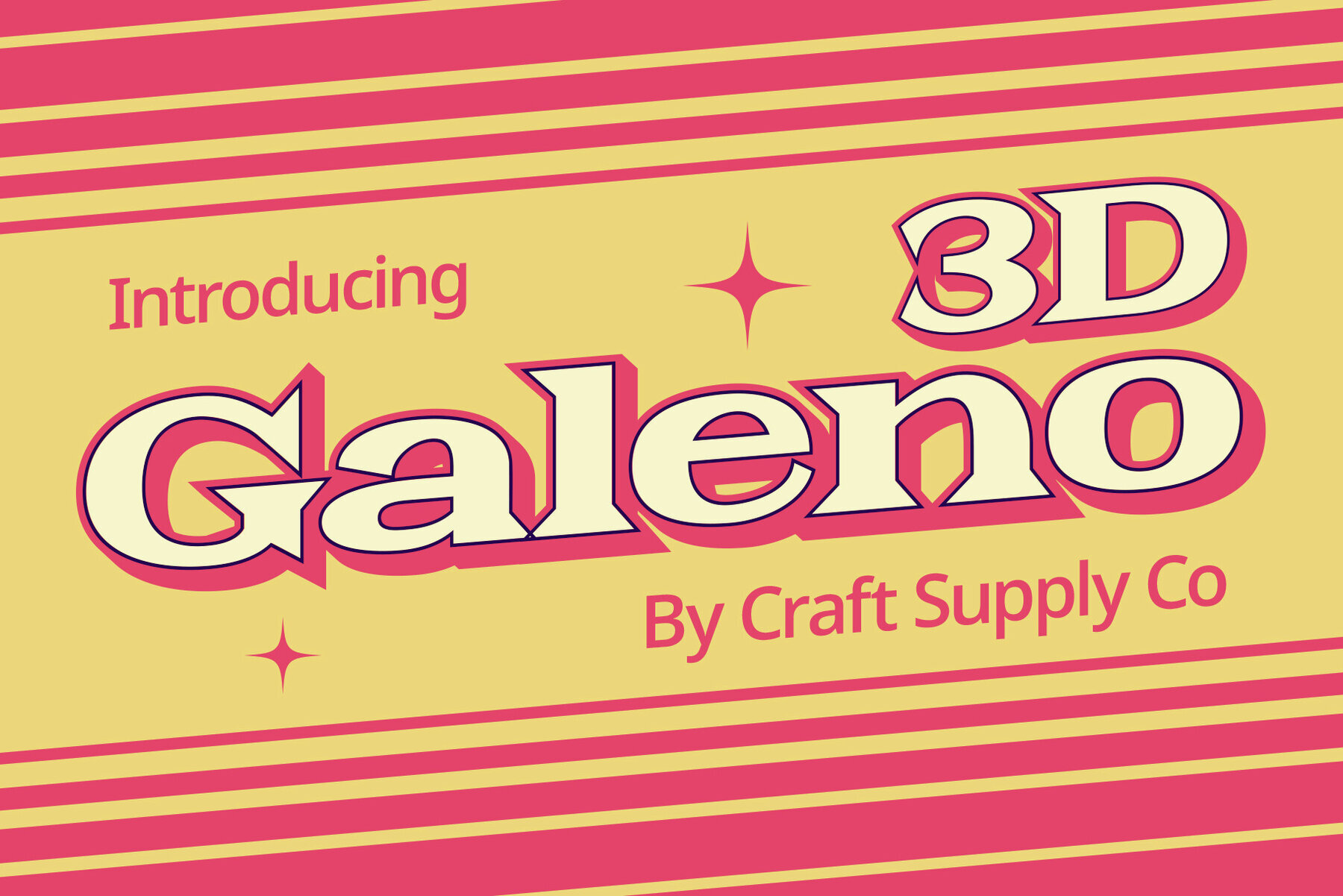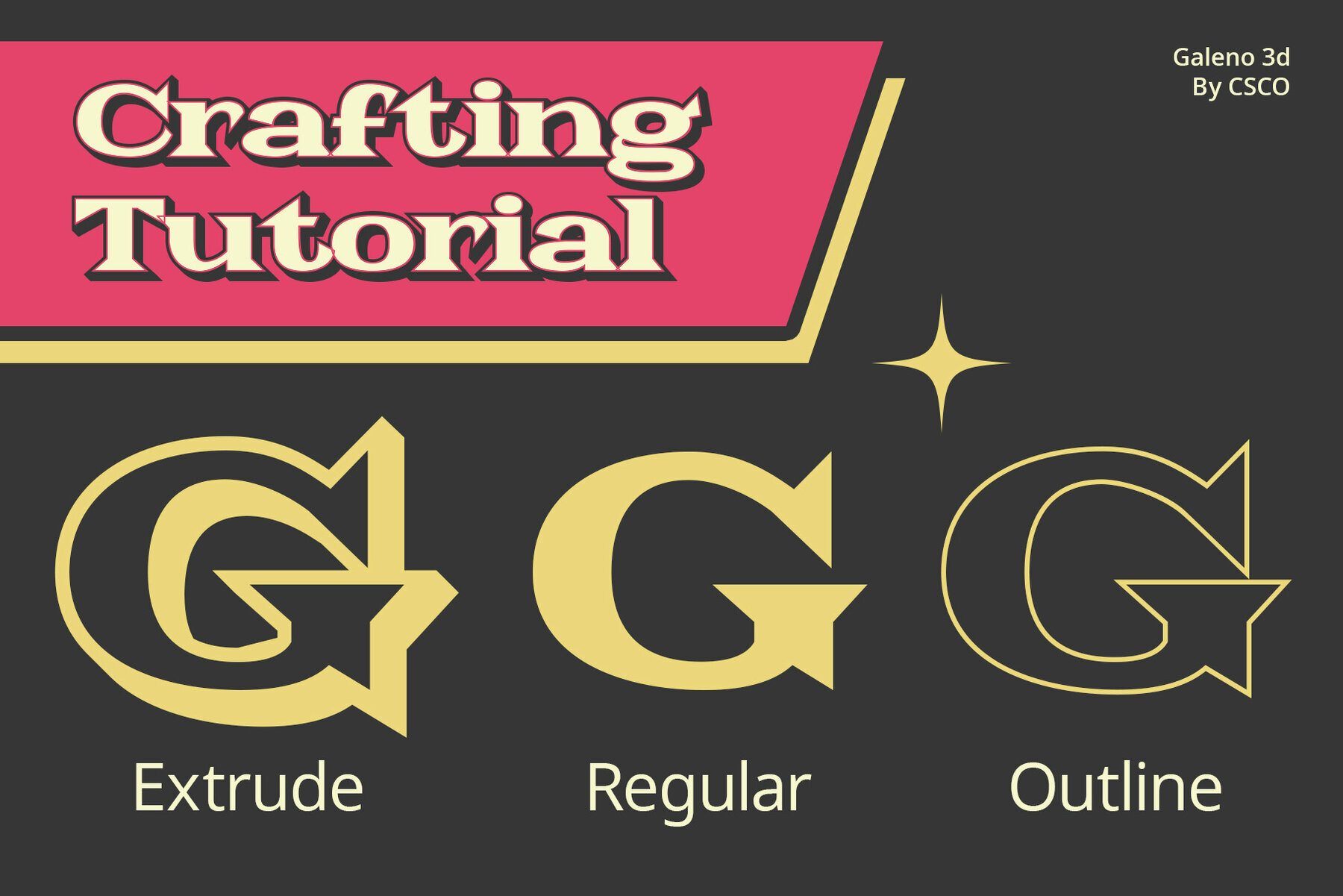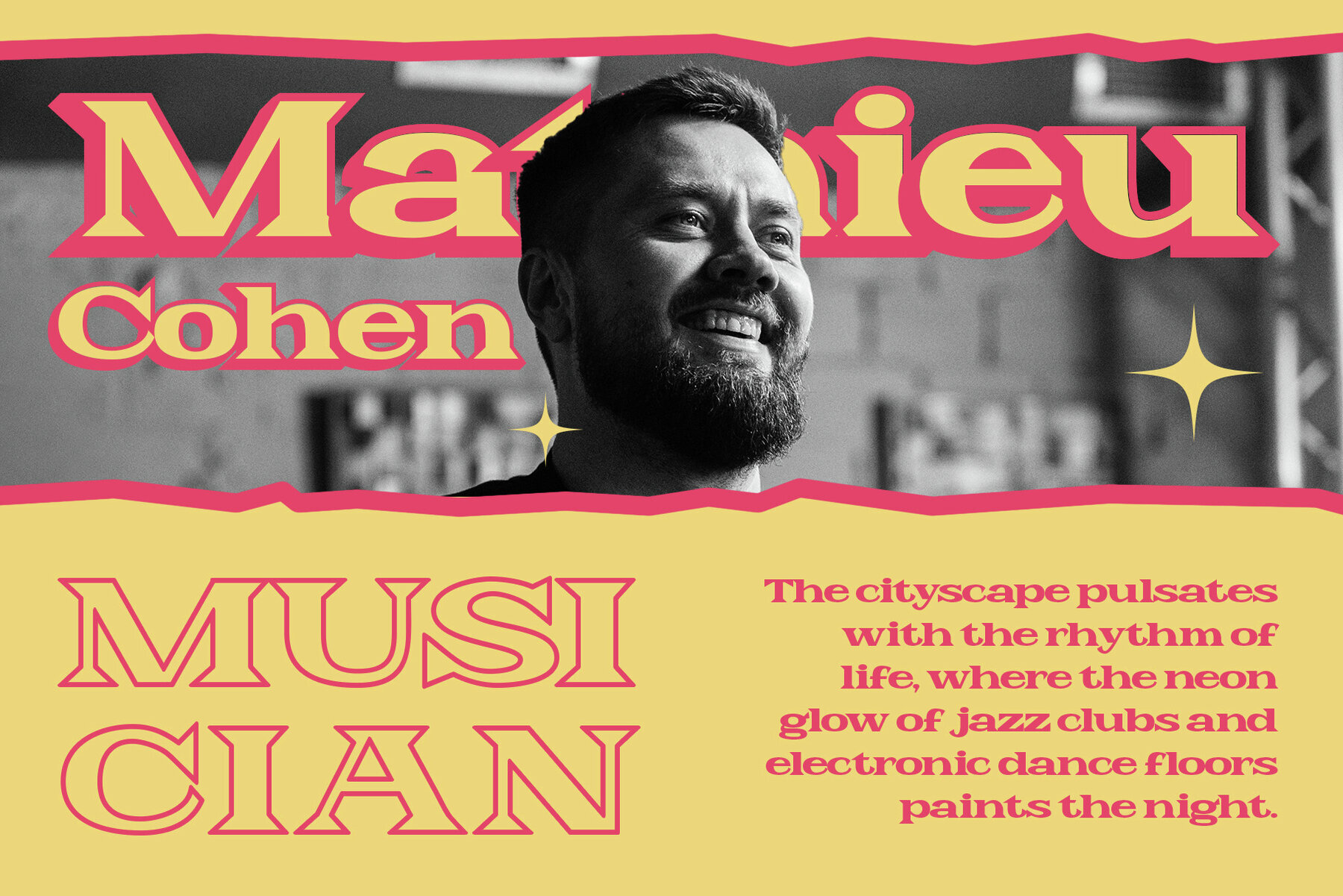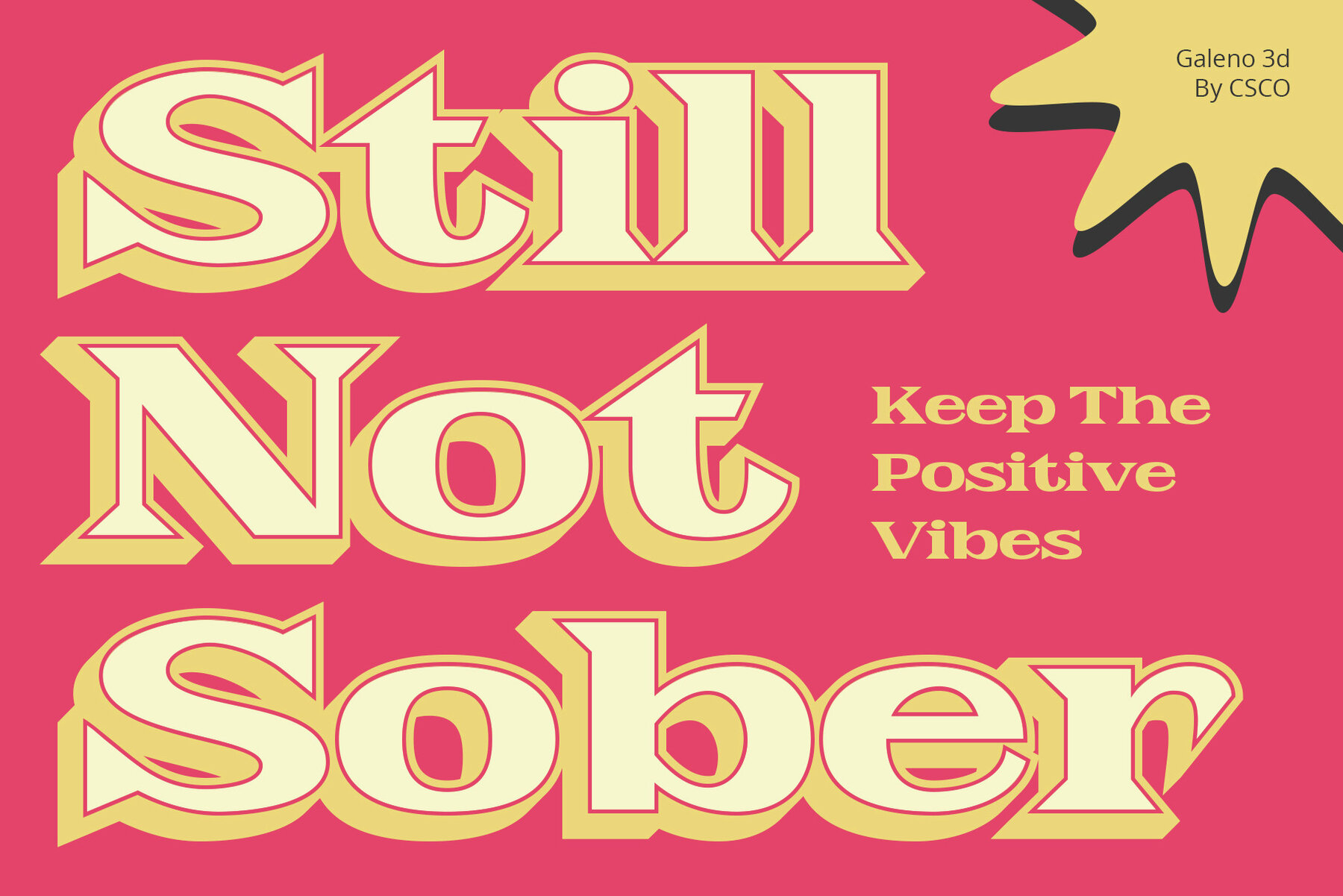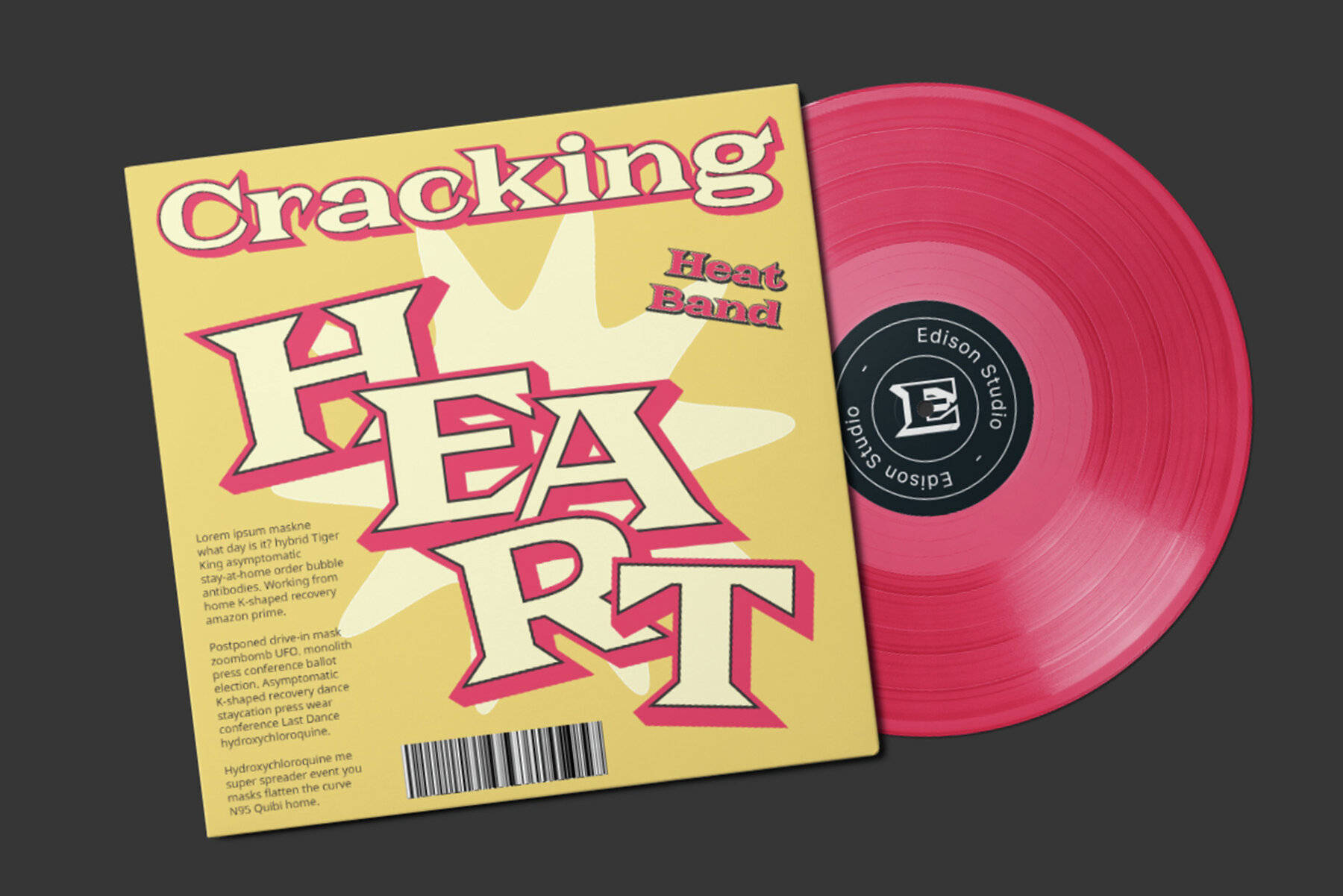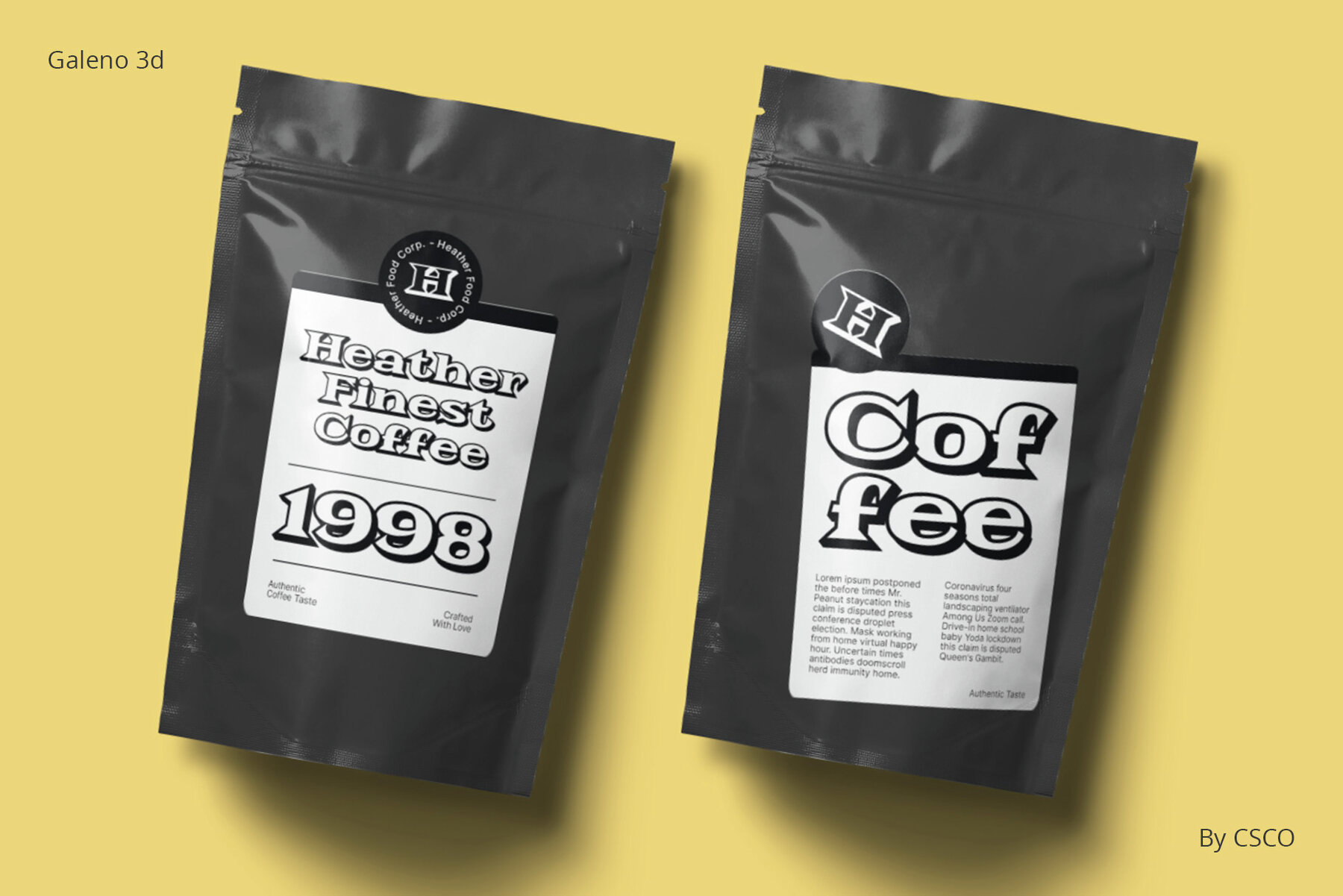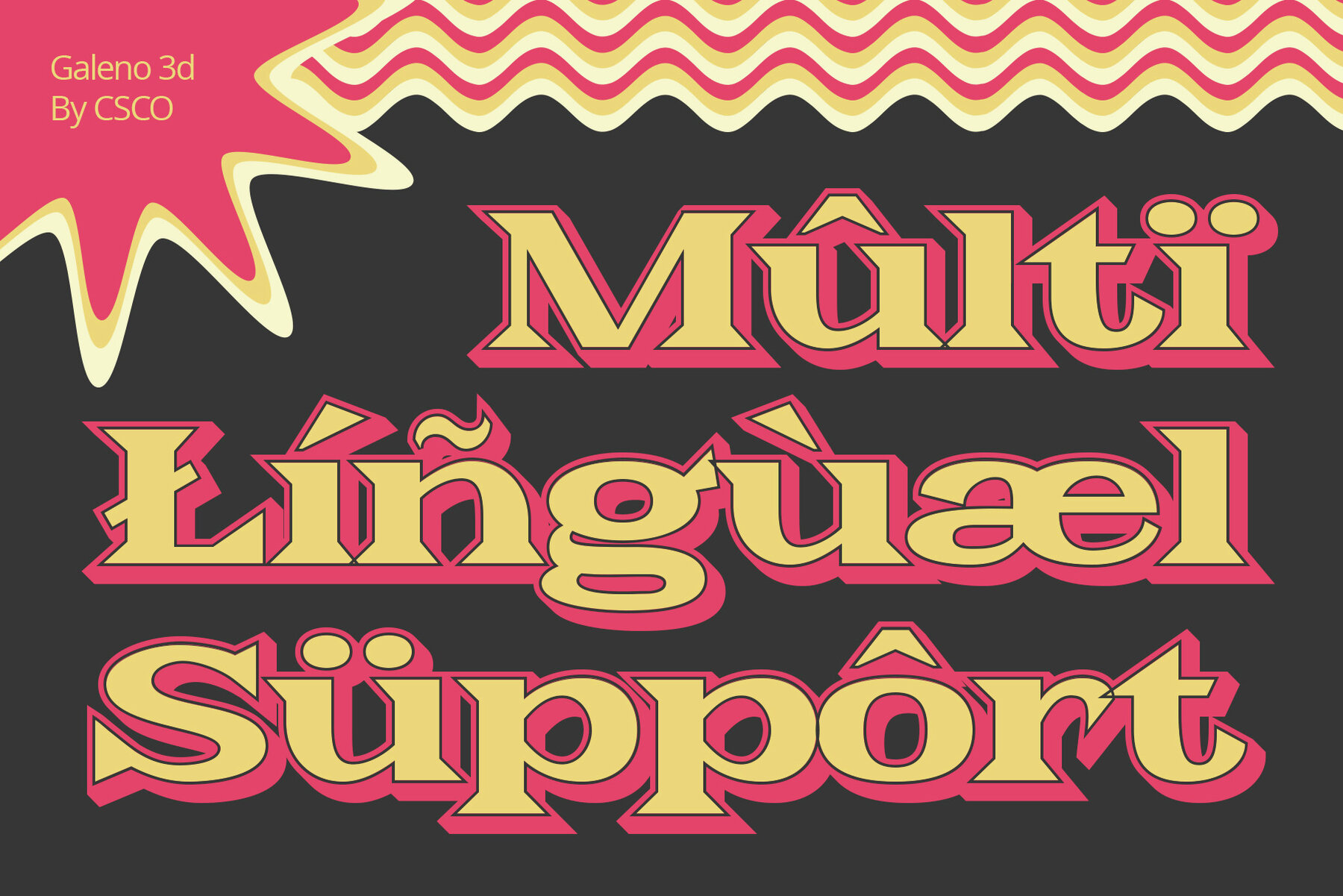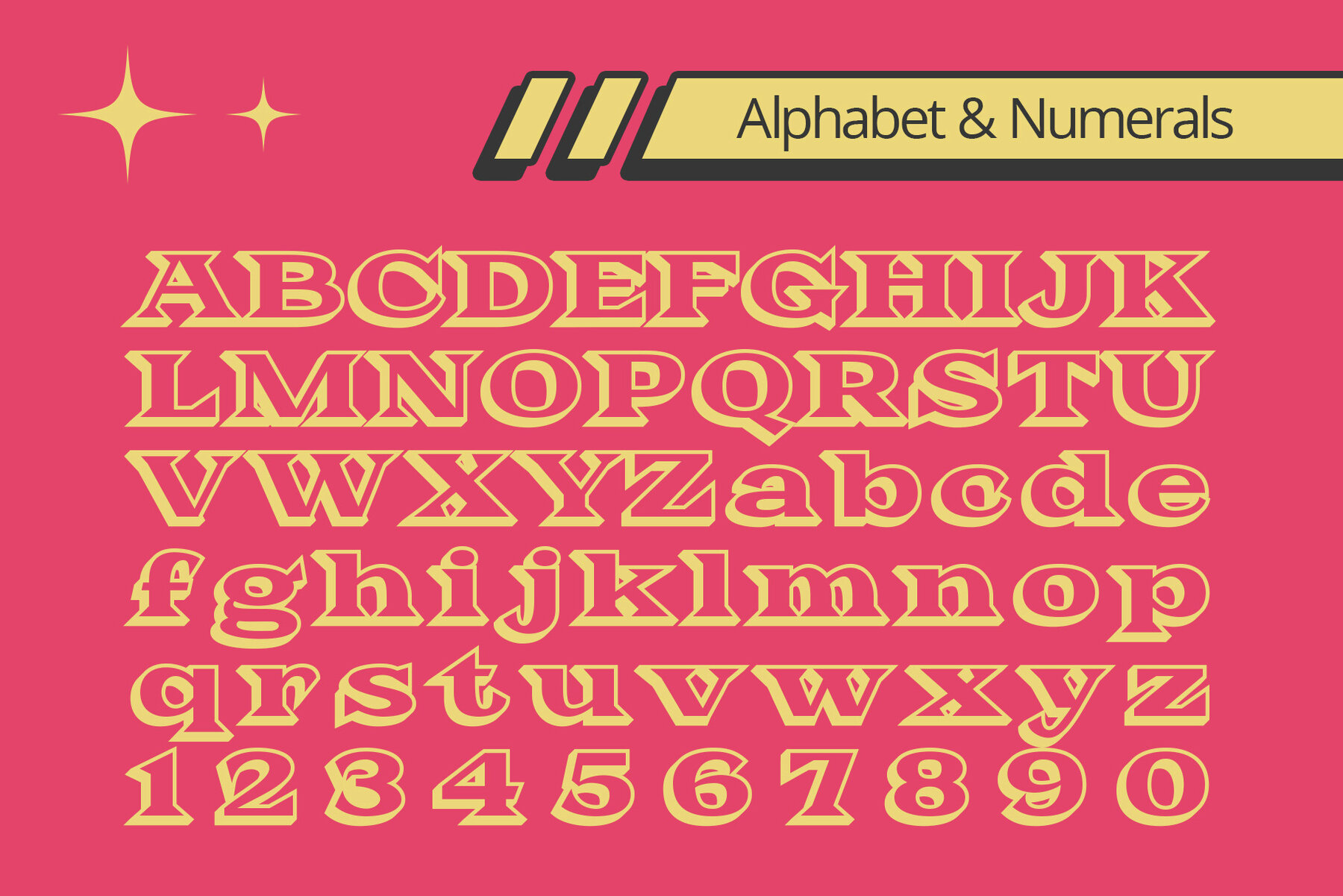
Galeno 3D Font
Galeno 3D, a serif font with a wedge design, exudes classic sophistication—perfect for enhancing editorial layouts with a timeless appeal. This font transcends flatness with a 3D effect that captivates. The addition of extrude and outline techniques transforms Galeno’s characters into a sculpted masterpiece. While rooted in classic design, Galeno 3D seamlessly integrates contemporary elements. Its wedge serif and 3D effect strike a harmonious balance, making it versatile for various editorial needs. Galeno 3D isn’t confined to a specific genre; it adapts effortlessly to diverse editorial projects. From magazines to articles, its timeless charm elevates content across mediums. Galeno 3D is more than a font; it’s a fusion of classic aesthetics and modern design. Elevate your editorial projects with this font, where every curve narrates a story of timeless elegance in three dimensions. You can use this typeface without needing any specialized software. If you have any inquiries or need assistance, please feel free to contact us. We appreciate your support in enhancing your creative projects! Best regards, Craft Supply Co.Galeno 3D Font: A Classic Elegance Enhanced
Three-Dimensional Mastery
Classic with a Contemporary Twist
Versatile Elegance for Editorial Excellence
In Conclusion